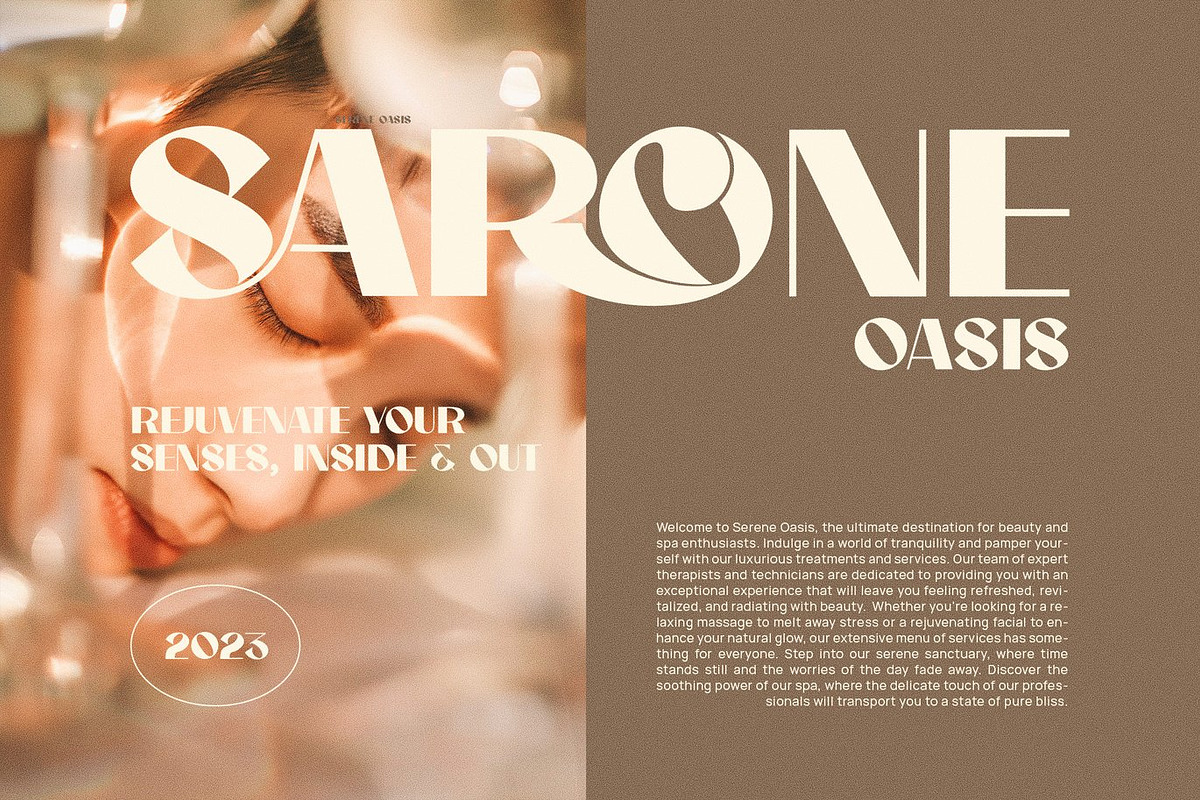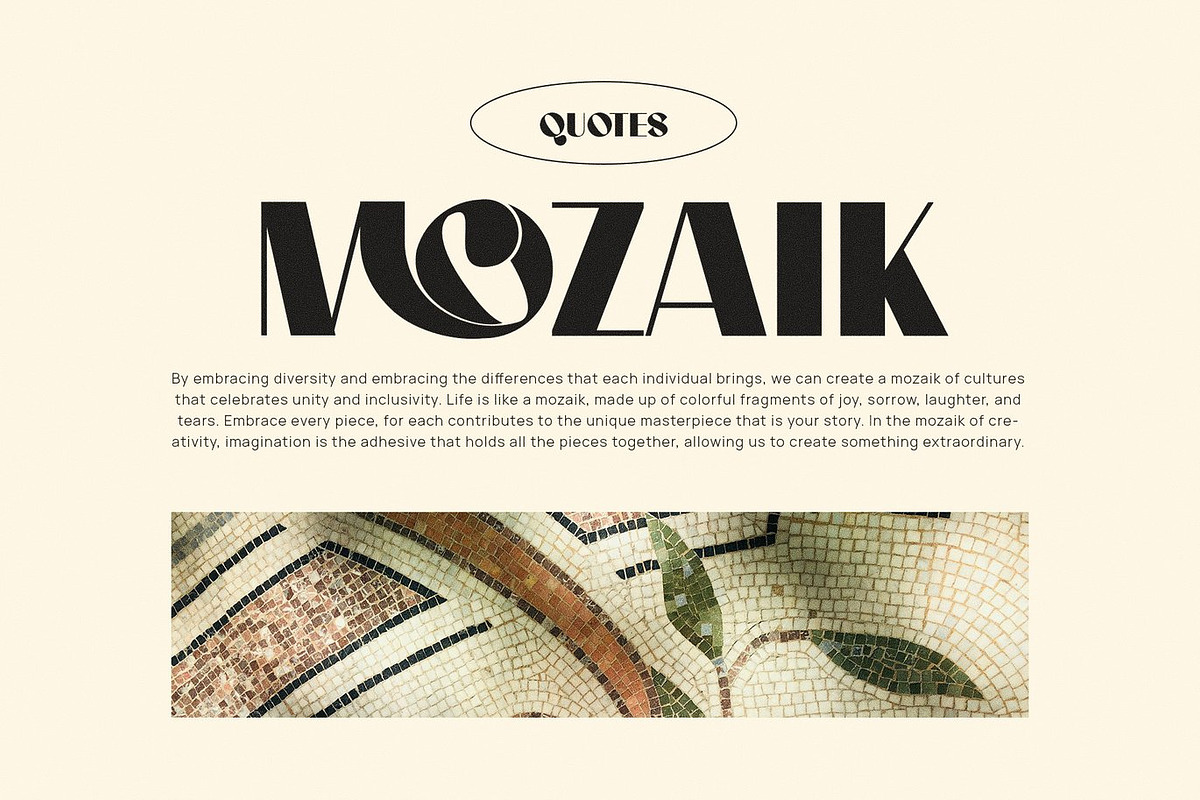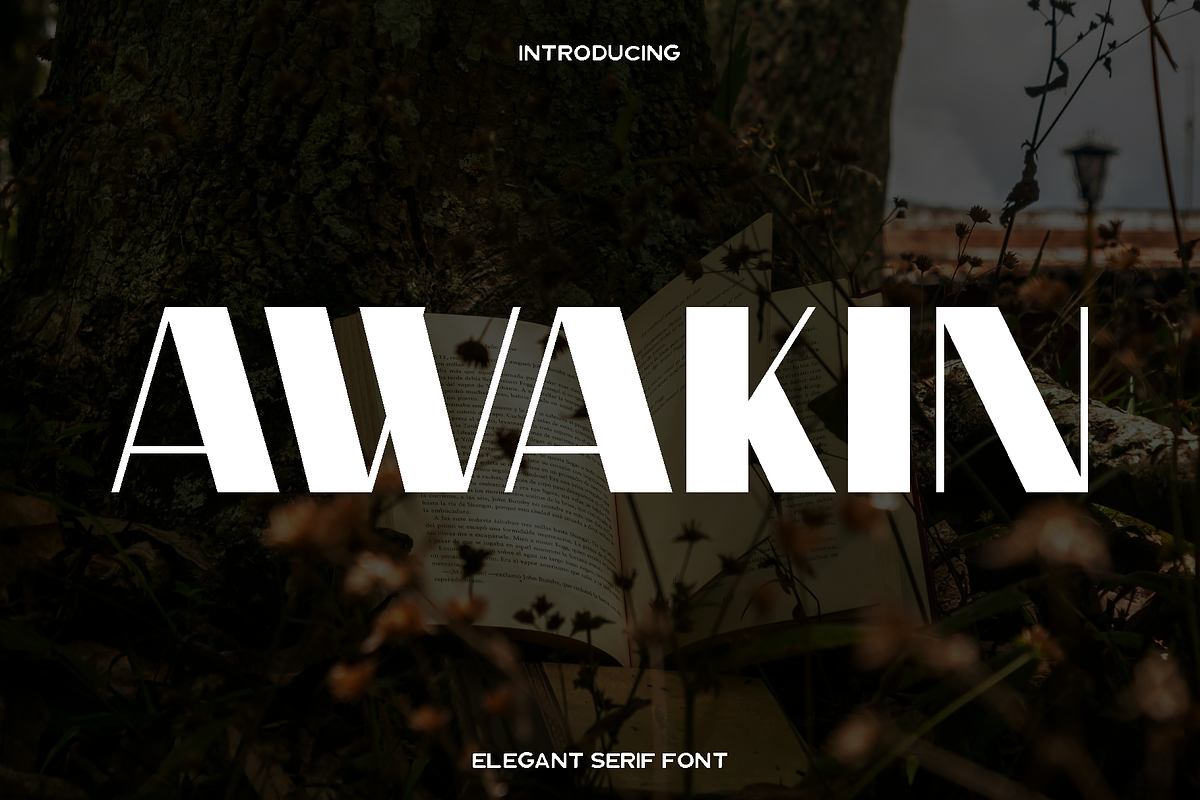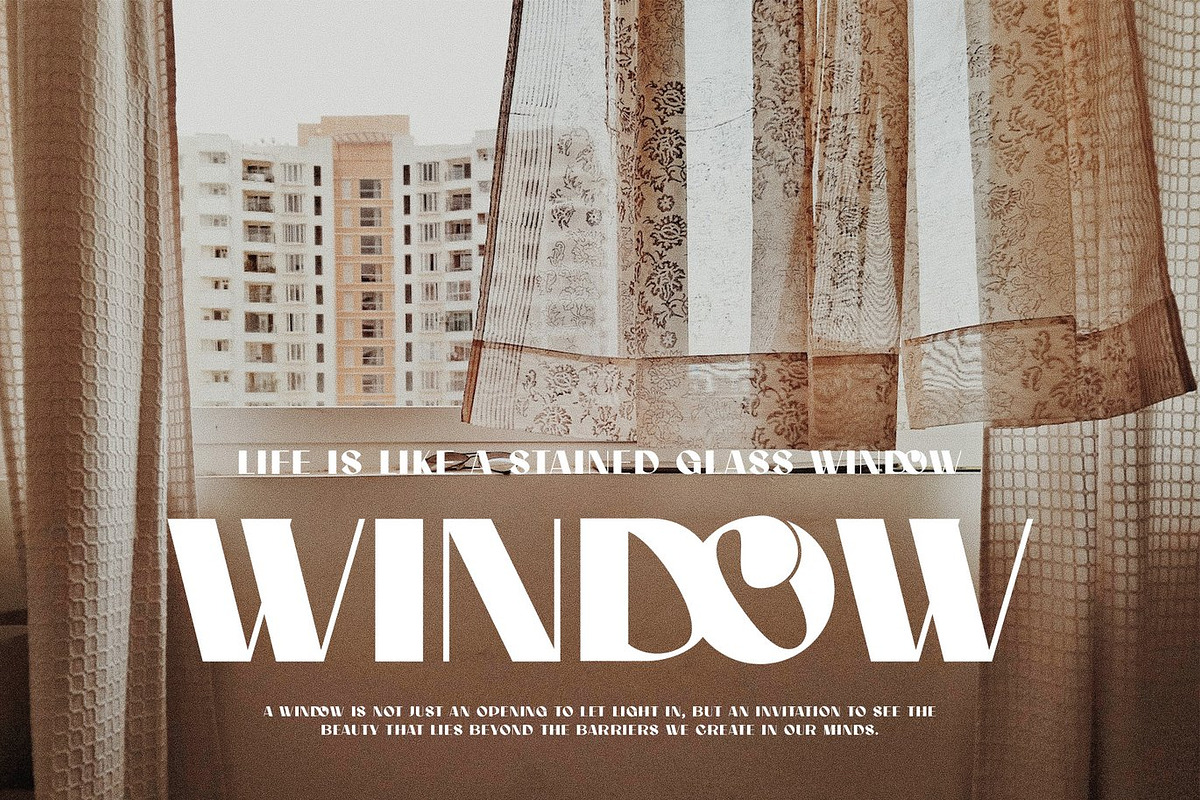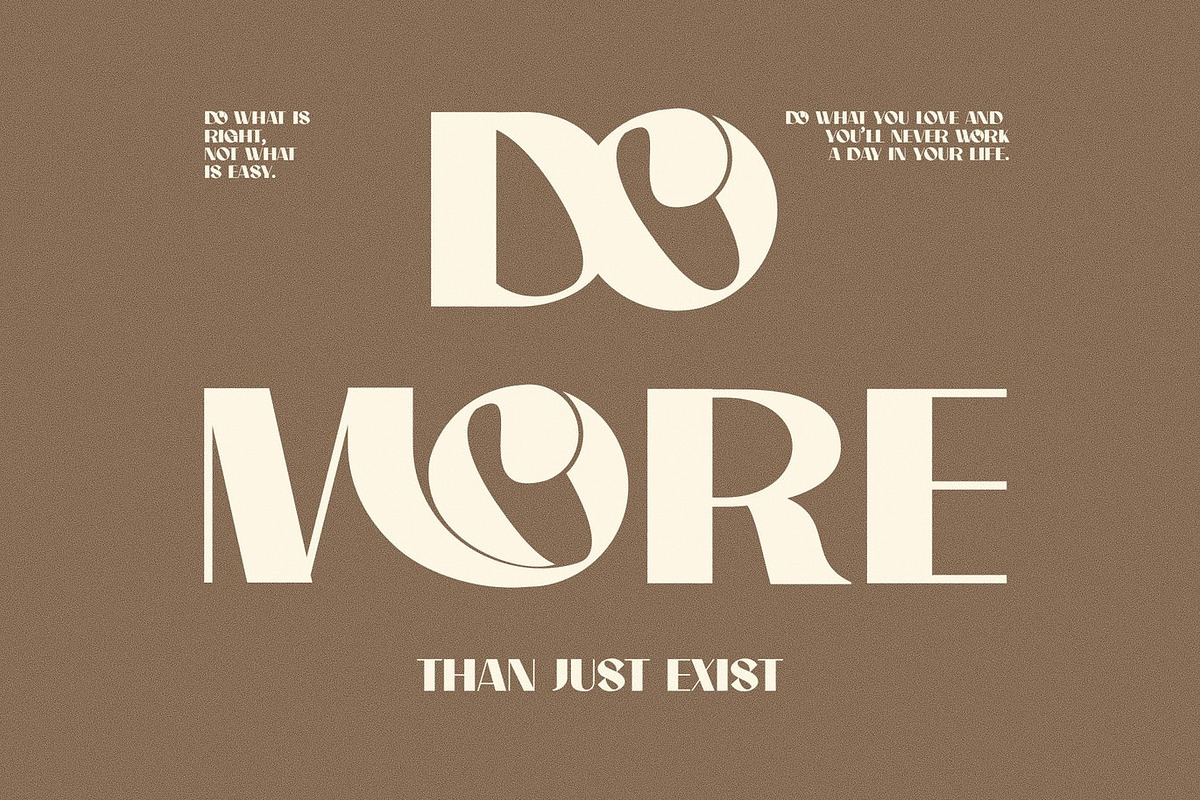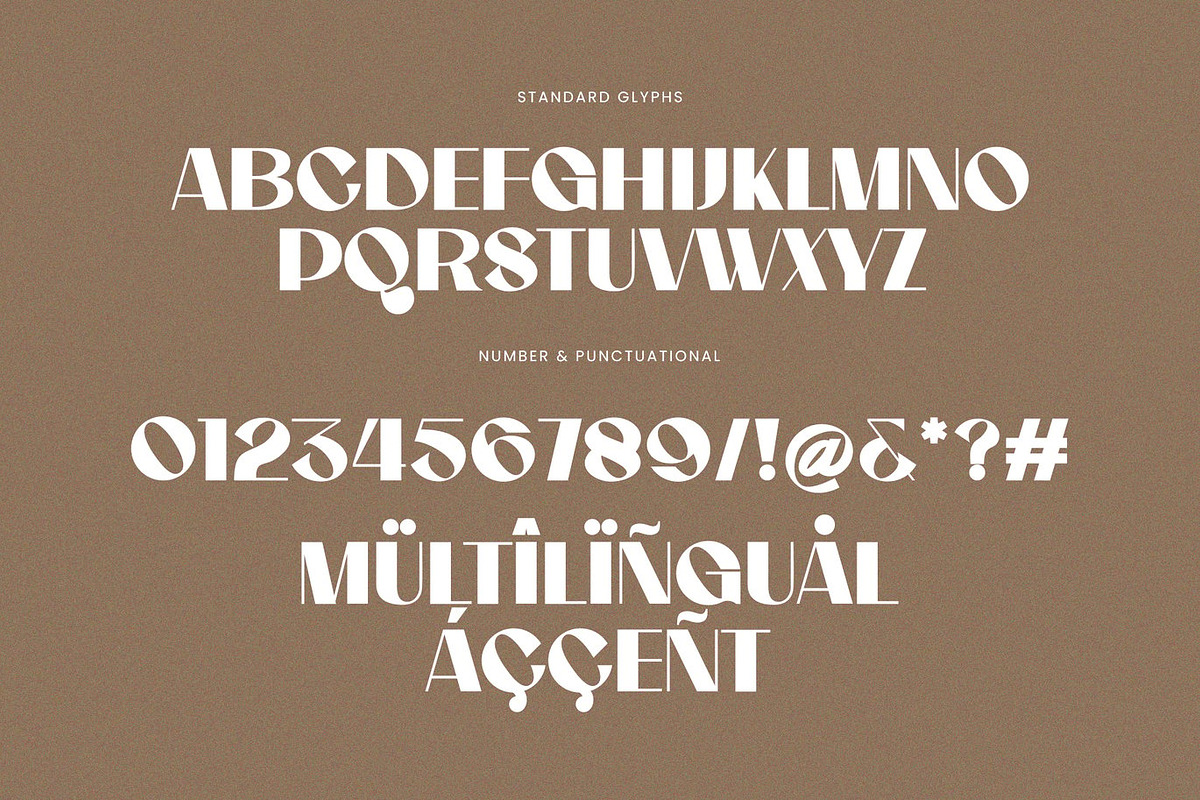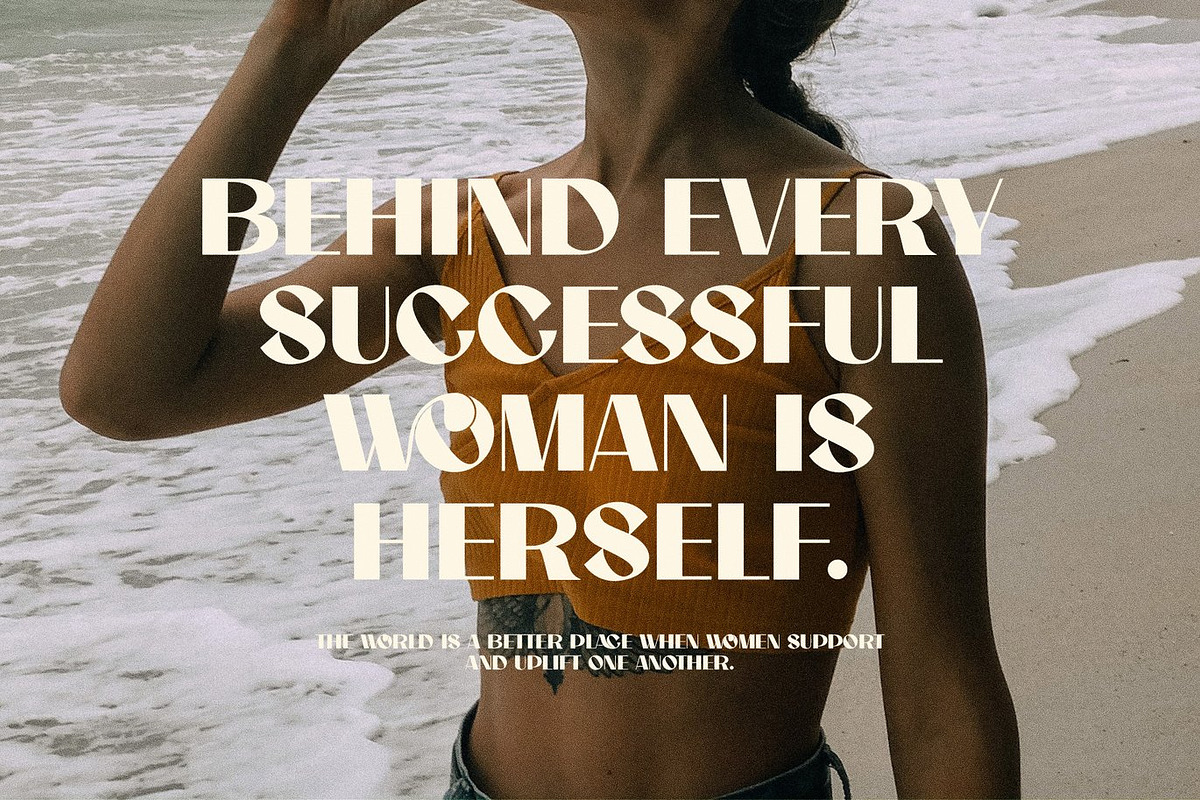
Awakin - Modern Serif
Awakin is a refined and elegant serif font created to bring sophistication and clarity into modern design. Crafted with a balance of classic serif beauty and contemporary styling, Awakin delivers a graceful visual tone that feels timeless yet fresh. Its carefully designed letterforms feature smooth curves, balanced contrast, and excellent readability, making it a reliable choice for both expressive and professional projects.
This font shines in branding and logo design, where elegance and identity matter most. Awakin is perfectly suited for wedding invitations, luxury packaging, fashion labels, editorial layouts, social media visuals, advertising materials, photography watermarks, stationery, and premium product designs. Whether used for bold headlines or refined text details, Awakin maintains a polished and confident appearance.
Awakin feels classy, calm, and trustworthy. It helps designers communicate quality, elegance, and style without overwhelming the design. Built with attention to detail and usability, this typeface performs beautifully across print and digital platforms. If you are looking for a versatile serif font that elevates your creative work and adds a professional finish, Awakin is a strong and stylish choice for your font library.
• Standard character set
• Numerals and punctuation
• Accented characters for Western European languages